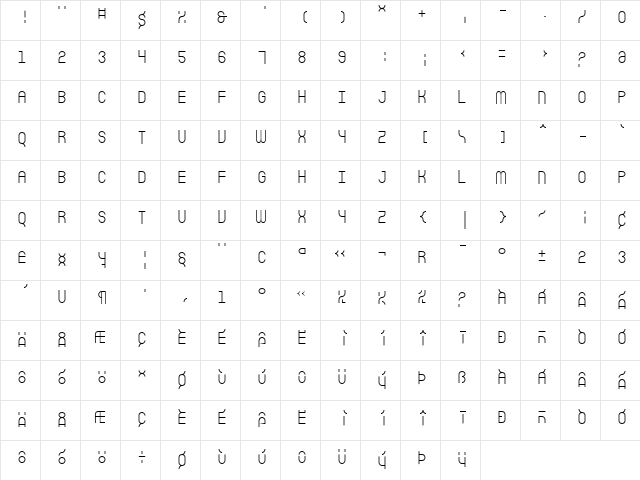
Sicret Mono PERSONAL Extra Light
| Foundry | Mans Greback AB |
| Designer | Mans Greback |
Design Context for Sicret Mono PERSONAL Typeface
Sicret Mono PERSONAL uses fixed-width spacing throughout, giving it the structured, systematic character associated with coding environments and technical documentation. Its slender proportions lend an understated elegance to any composition.